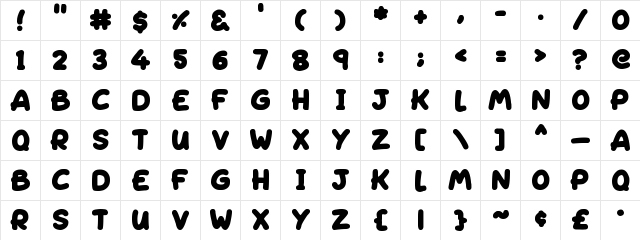
Sleeping Regular
Design Context for Sleeping Typeface
Sleeping is a composed and adaptable typeface that performs quietly and consistently across a wide range of design contexts.